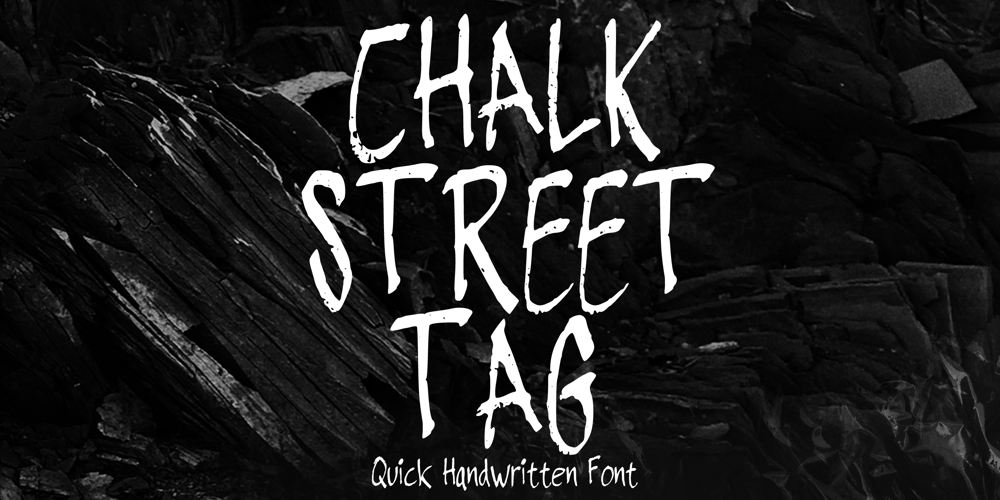
Chalk Street Tag
Chalk Street Tag font
Chalk Street Tag Font Family was designed by Gabriel Valentinus and published by Mvmet. Chalk Street Tag contains 1 styles and family package options. Chalk Street Tag is a quick skinny handwritten font, inspired by graffiti-style tags made with chalk. It will elevate a wide range of design projects to the highest level. You can use this font for many design ideas such as stickers, t-shirt designs, amazing logo designs, magazine or book covers, comics, cartoon drawings, and many more. This font will add a super cool touch to your designs!